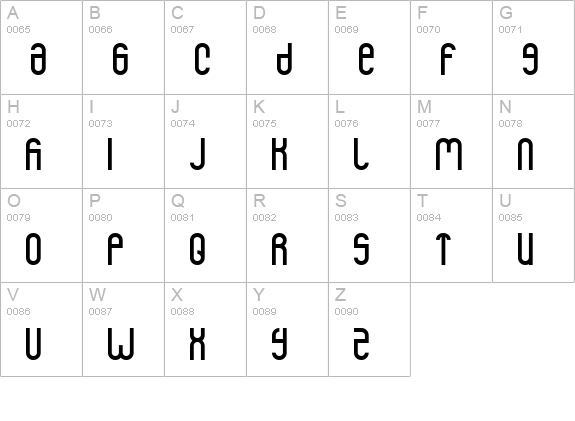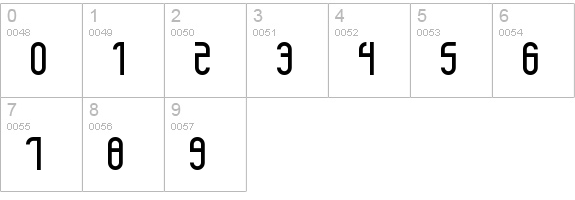
Mountaintop Milk Font Details
Mountaintop Milk font is a whimsical and charming typeface that exudes a sense of adventure and playfulness. With its bold and rounded letterforms, this font is perfect for creating eye-catching designs that stand out. Whether you're working on a poster, logo, or branding project, Mountaintop Milk font adds a touch of fun and creativity to your work. Best of all, Mountaintop Milk font is available for free download at FontsMarket.com. This means you can easily access and use this unique font in your projects without any cost. Don't miss out on the opportunity to add Mountaintop Milk font to your font collection and unleash your creativity with its delightful and distinctive style.